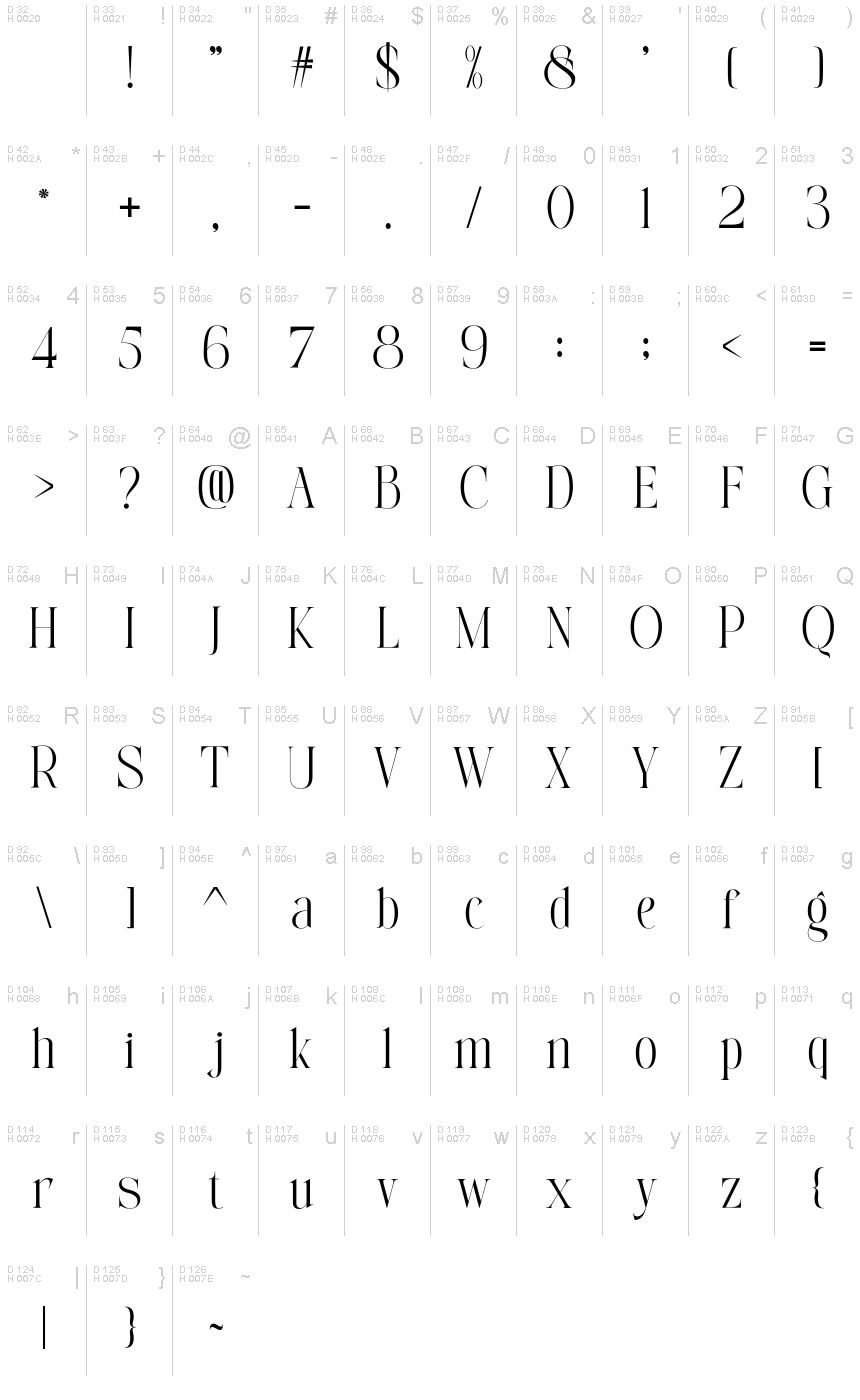
AVELIRE
Avelire, a serif font crafted by ToniStudio, exudes a captivating blend of timeless elegance and modern refinement. Its condensed design effortlessly balances visual appeal and legibility, making it a versatile choice for a wide range of applications. The font's intricate serifs and carefully curated character shapes lend an air of sophistication, while the overall condensed structure provides a clean and streamlined aesthetic.
Avelire's versatility shines through, making it a compelling option for editorial design, branding, and high-end typography projects. Its refined and polished appearance lends itself well to luxury product packaging, fashion-forward lookbooks, and sophisticated marketing materials. Additionally, the font's condensed nature allows for efficient typesetting, making it an ideal choice for space-constrained layouts without compromising readability.